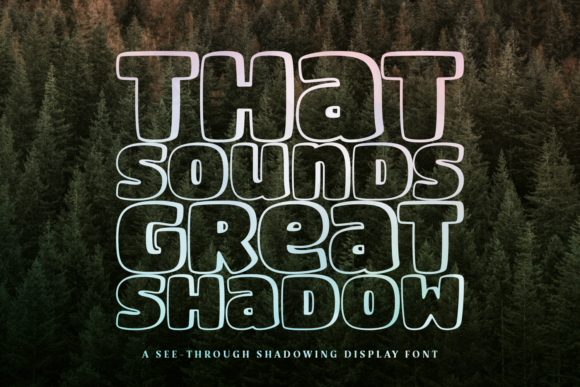
Roam into the realm of creativity with That Sounds Great Shadow Font, a captivating display font that exudes bold personality! Immerse yourself in the playful charm of this thick lettered and outlined font. Its robust presence commands attention, making it the perfect choice for crafting alluring travel posters that transport viewers to exotic destinations. Unleash your wanderlust and craft visual masterpieces that ignite wanderlust and leave an indelible mark on your audience.
Designed by the talented Situjuh, That Sounds Great Shadow Font boasts a versatility that belies its bold appearance. Its spectrum of applications extends far beyond travel posters, reaching into the realm of greeting cards and headlines. Its playful nature lends itself to projects seeking a touch of whimsy, adding a spark of fun to any design.
With That Sounds Great Shadow Font, you unlock the power to evoke emotions and create lasting impressions. Watch as your designs captivate audiences with their distinctive charm. Embrace the transformative power of this font and embark on a creative journey where imagination reigns supreme. Let your designs soar to new heights and leave an enduring legacy of visual brilliance.